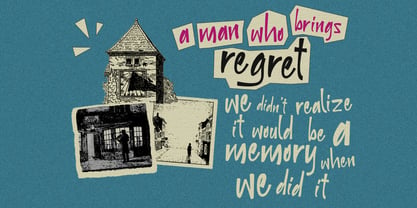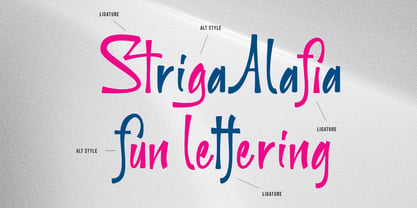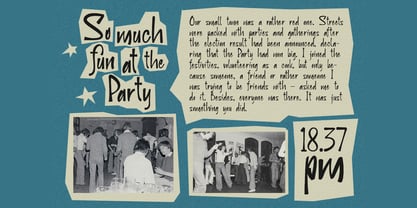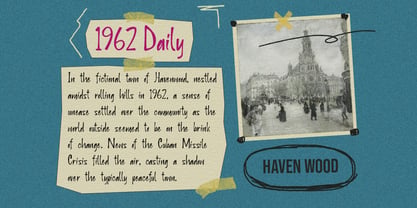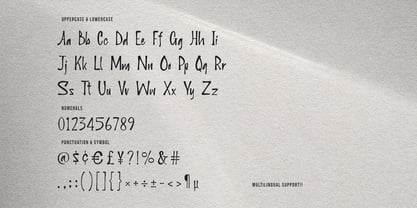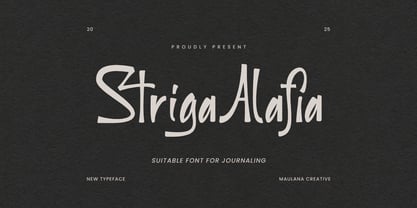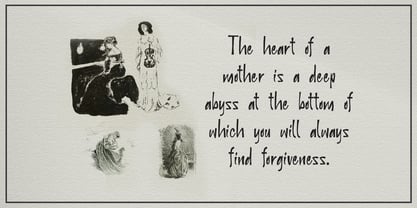
MC Striga Alafia
by Maulana Creative
The MC Striga Alafia Font Family was designed by Gilang Maulana and published by Maulana Creative. MC Striga Alafia contains 1 styles. More about this family
Striga Alafia is a journaling vintage display font. Bold stroke, fun character with a bit of ligatures and alternates. To give you an extra creative work. Striga Alafia font support multilingual more than 100+ language. This font is good for logo design, Social media, Movie Titles, Books Titles, a short text even a long text letter and good for your secondary text font with script or serif. Make a stunning work with Striga Alafia font.
Designers: Gilang Maulana
Foundry: Maulana Creative